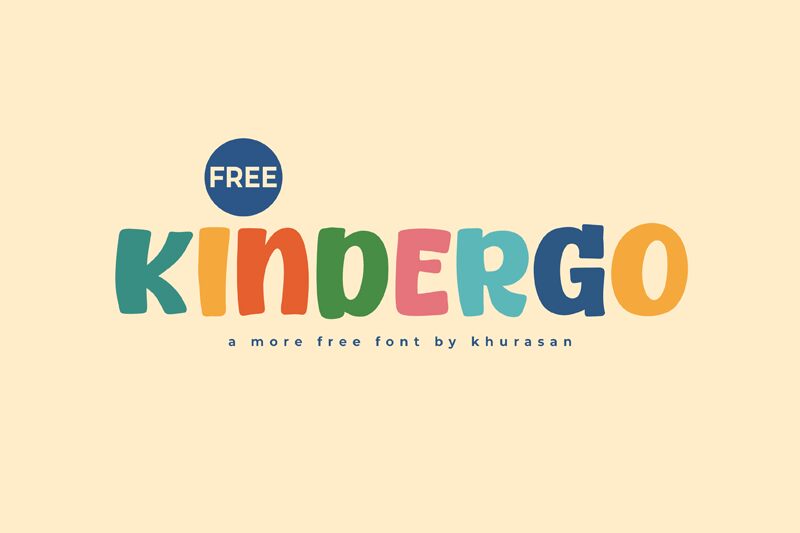
Kindergo font family by Khurasan is a free playful decorative display typeface with cartoon aesthetics. This font family contains 2 unique and enthusiastic font styles characterized by smooth rounded letter shapes and bold lines. Overall, the font expresses a youthful, cheerful, and informal style and feels happy, vibrant, and colorful. The back and forth movements that resemble a handwriting cursive style help create a naturally dynamic and lively cartoon decoration.
Kindergo can be used in kids oriented projects such as story books, games, and animations. The font also fits well in vibrant projects such as festival posters, bag packaging, children themed brands, toys decoration, and much more. Its friendly feel makes Kindergo applicable to reach the parents segment in case of products that are aimed at both parents and kids.